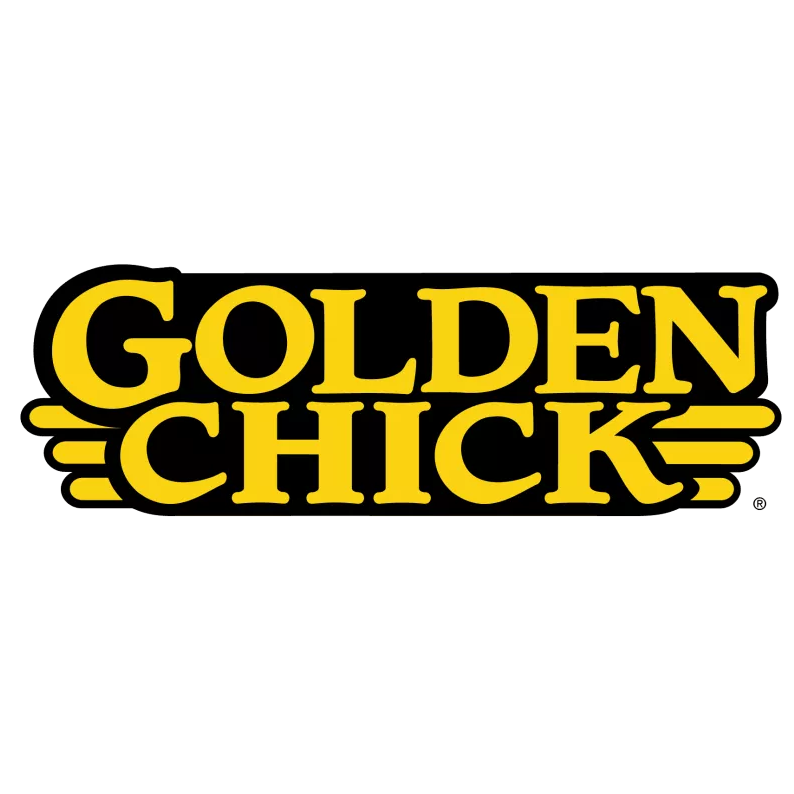
Golden Chick Font
Fonts in UseGolden Chick is a fast-food chain that specializes in fried chicken and tenders. It was founded in Texas in 1967 and has since expanded to over 180 locations across the United States.
The logo's typeface appears to be a stretched variant of Caxton ExtraBold, a serif font created by Les Usherwood in 1981 and named after William Caxton, an English printer from the 15th century.